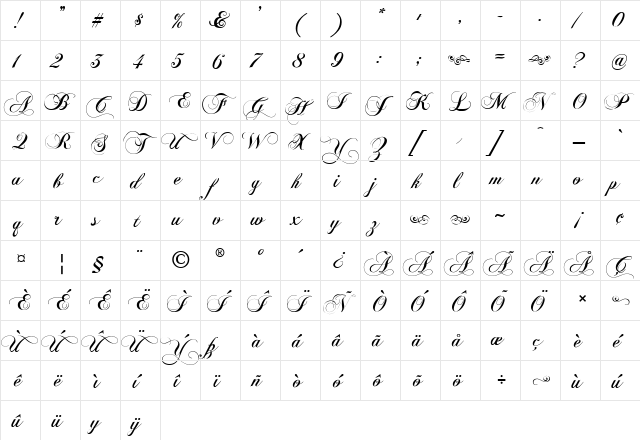
Chopin Script Regular
Design Context for Chopin Script Typeface
Chopin Script flows with the natural rhythm of handwritten lettering, making it ideal for designs that call for warmth and personal expression.
Font Pairing: Combine Chopin Script with a simple geometric sans for maximum contrast — the tension between flowing curves and clean structure is a classic typographic pairing.
Pro Tip: Use Chopin Script for short runs of text — names, titles, or taglines. Extended body copy in script faces tires the eye quickly.